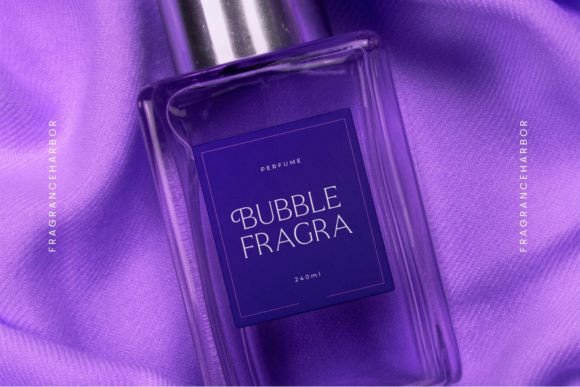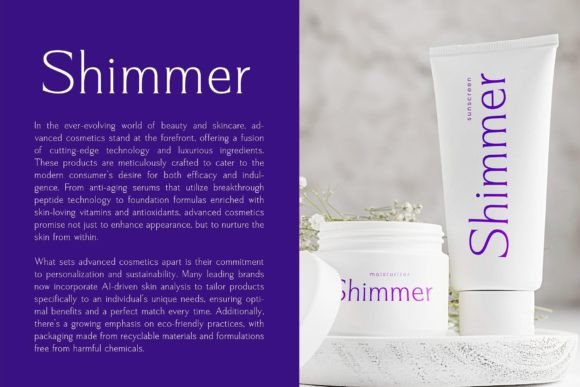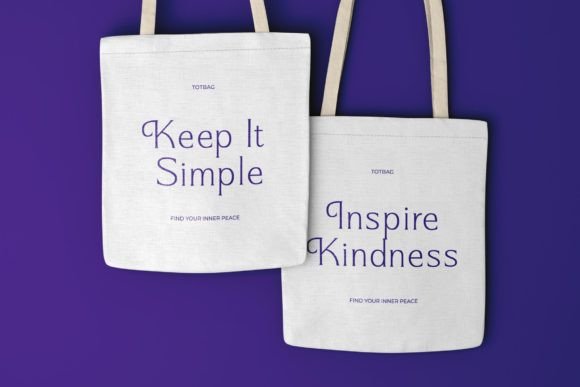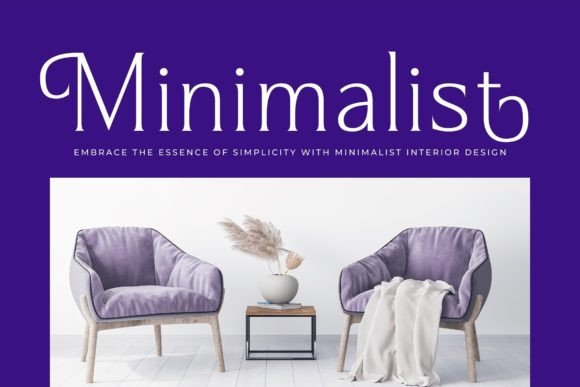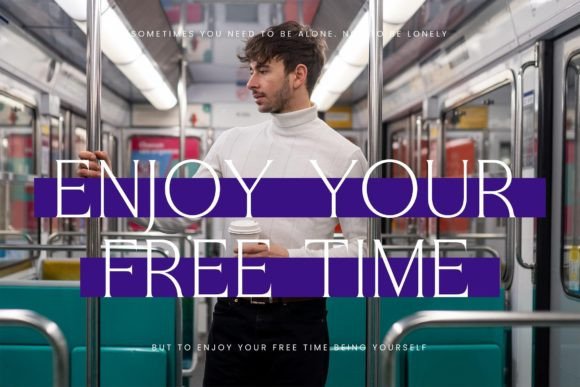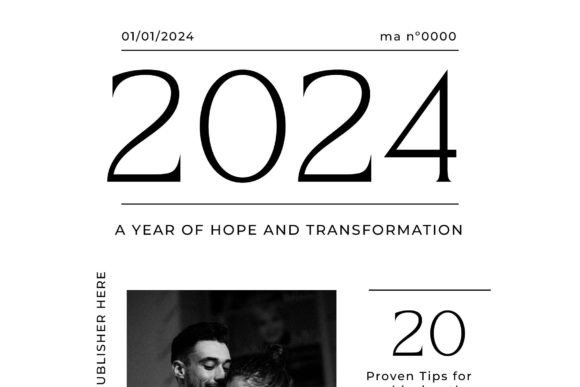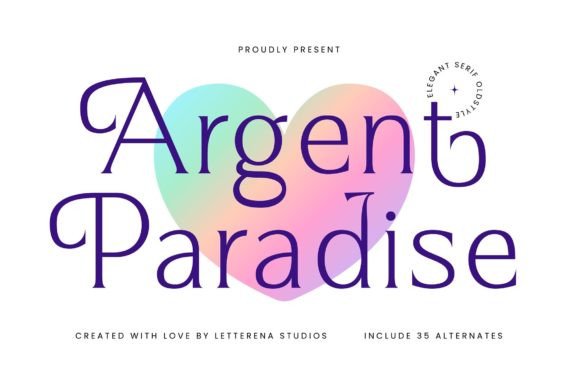
Introducing Argent Paradise Font: Elevate Your Designs with Elegance
Are you a designer or crafter looking for a font that exudes luxury and sophistication? Look no further than Argent Paradise, an elegant serif font from Letterena. This stunning typeface is perfect for a wide range of projects, from logos and branding to packaging, posters, and more.
The Characteristics of Argent Paradise
Argent Paradise is a luxury serif font that boasts classic, old-style charm. Its elegant lines, refined details, and sophisticated feel make it an ideal choice for designers seeking to add a touch of high-end style to their work. The font’s versatility ensures that it can be used for various design projects, including:
- Logos and branding projects
- Homeware designs
- Product packaging
- Mugs and ceramics
- Quotes and posters
- Shopping bags and textiles
- T-shirts and apparel
- Book covers and publishing
- Name cards and invitation cards
- Greeting cards and stationery
- Labels and stickers
- Photography and watermark
- Special events and weddings
Why Choose Argent Paradise?
There are many reasons why Argent Paradise stands out from the crowd. Here are just a few:
- Elegance and sophistication: Argent Paradise boasts a refined, luxurious feel that’s perfect for high-end designs.
- Versatility: This font can be used for a wide range of projects, from digital designs to print materials.
- Classic charm: Argent Paradise’s old-style serif design ensures that your work will have a timeless, classic feel.
- Easy to read: The font’s clear, legible design makes it perfect for body text, headlines, and titles.
Design Tips and Inspiration
To get the most out of Argent Paradise, here are some design tips and inspiration:
- Pair with contrasting fonts: Combine Argent Paradise with sans-serif fonts or script fonts to create visually appealing contrast.
- Experiment with colors: Try pairing the font with rich, jewel-toned colors or metallic accents to enhance its luxurious feel.
- Use for headlines and titles: Argent Paradise is perfect for headlines, titles, and captions – use it to add a touch of elegance to your designs.
About Letterena
Letterena is a renowned font foundry that specializes in creating high-quality, unique typefaces. With a passion for typography and design, Letterena’s fonts are sought after by designers and crafters worldwide. Argent Paradise is just one example of their exceptional work.
Argent Paradise is an exceptional font that can elevate your designs to new heights. Its elegant serif design, versatility, and classic charm make it perfect for a wide range of projects. Whether you’re a designer, crafter, or DIY enthusiast, this luxury serif font is sure to become a staple in your design arsenal. So why wait? Discover the beauty of Argent Paradise and take your designs to the next level.